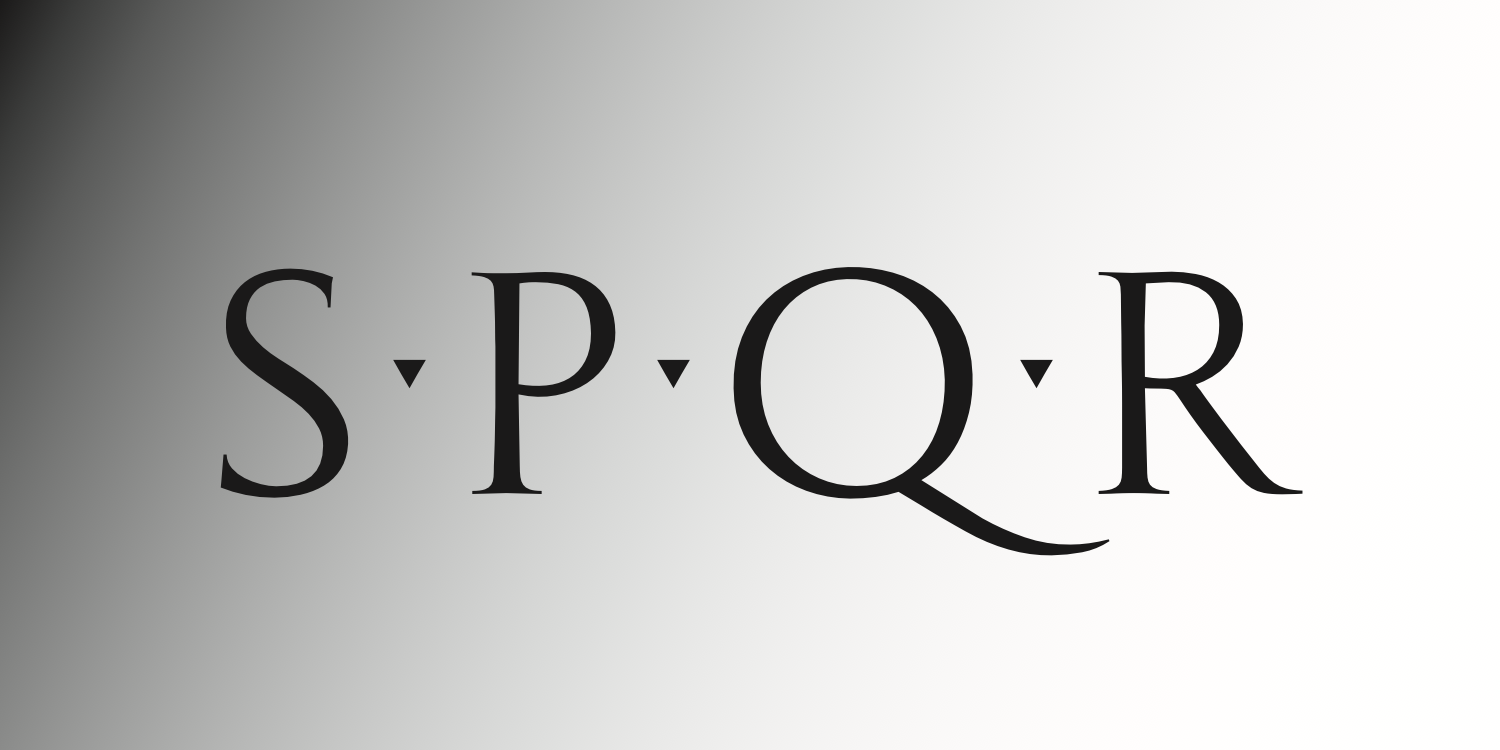
Antiqva Font is perfect for historical documentaries, classical literature publications, museum exhibition labels, vintage branding projects, antique shop signage, heritage foundation materials, traditional book covers, and period-accurate design reproductions. This distinguished typeface excels in projects requiring authentic historical character and scholarly gravitas where antiquity meets contemporary design needs.
What makes Antiqva Font exciting is its faithful revival of classical Roman letterforms combined with modern digital precision, creating an authentic bridge between ancient typography and contemporary applications. The font features traditional proportions with characteristic serifs and classical details that evoke the grandeur of ancient inscriptions and early printing traditions. Its historical character makes it perfect for brands and projects seeking to convey timeless wisdom, cultural heritage, and scholarly authority.
Antiqva Font family includes various weights and stylistic alternatives that enhance its classical appeal while providing modern design flexibility. The family typically offers regular, medium, and bold weights, along with small caps, old-style numerals, and decorative ligatures that complement historical and academic design themes perfectly.
Whether you're designing historical museum exhibitions, creating classical literature editions, or developing heritage brand identity, Antiqva Font Free Download provides the perfect antiquarian solution for projects demanding authentic period character. This font's scholarly presence and historical authenticity make it essential for institutions and designers working with cultural heritage and educational content.
The carefully preserved classical proportions and authentic details of Antiqva Font create an immersive historical experience while maintaining excellent readability in modern applications. Its distinctive personality and scholarly aesthetic make it an invaluable tool for historians, educators, and cultural institutions. Download Antiqva Font today and bring the timeless elegance of classical typography to your heritage-focused creative projects with this authentically inspired typeface.